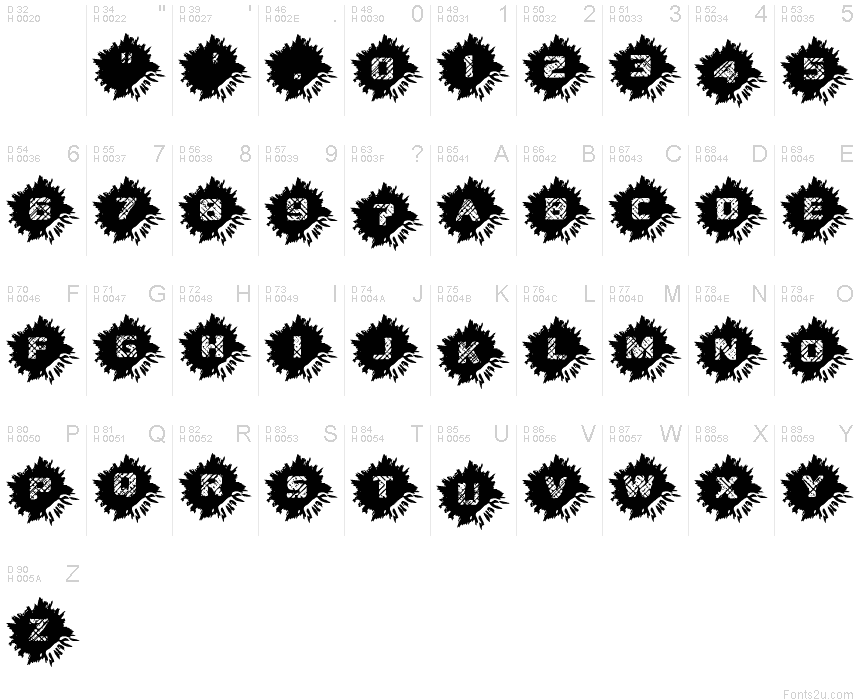
Dead CircuitRegular
Dead Circuit font by Phillip G. Andrade is a free distorted font that looks like someone stamped jagged ink explosions across the page and wired them with scratched, industrial letters. Each character sits inside a rough, starburst splatter, while the inner forms feel like patched‑together circuitry, crisscrossed with noisy textures. The result is loud, chaotic, and tactile—like a spray‑painted hazard symbol on a concrete wall—giving the Dead Circuit typeface an unmistakable shock factor at large sizes.
Using Dead Circuit in the Dead Circuit family, your titles instantly feel toxic, underground, and a bit unstable—in the best way. This free font works beautifully for horror movie posters, metal or punk gig flyers, experimental album covers, Halloween branding, game logos, and glitchy YouTube or streaming graphics. For readability, pair it with a clean, narrow sans serif for supporting text and let Dead CircuitRegular shout in bold, oversized headlines.